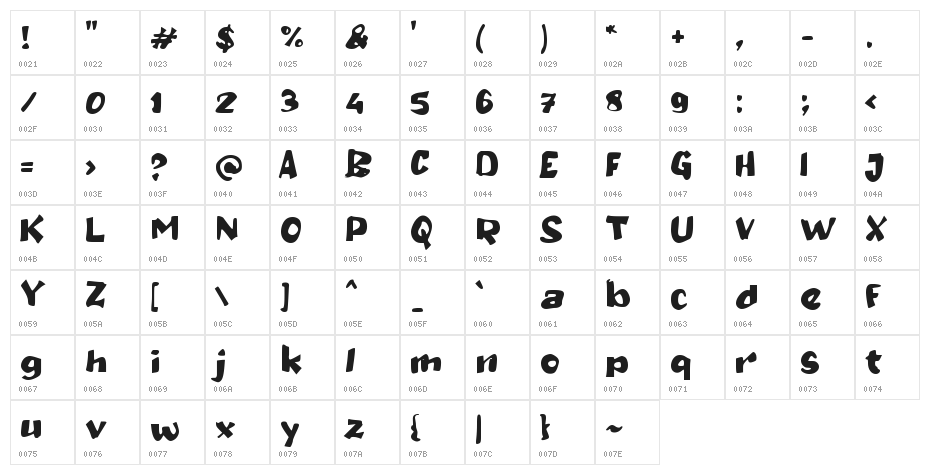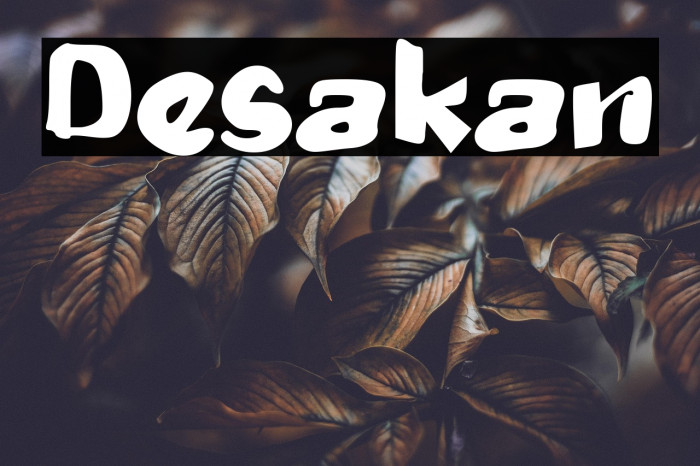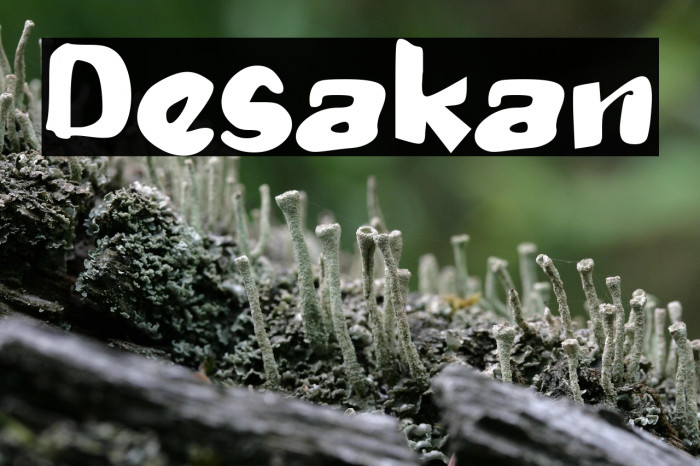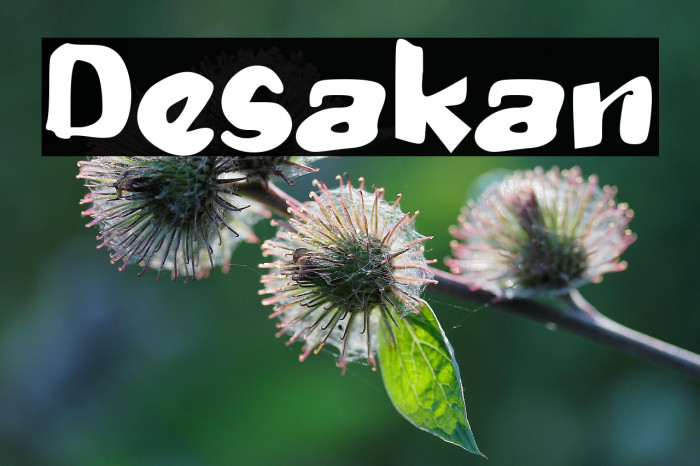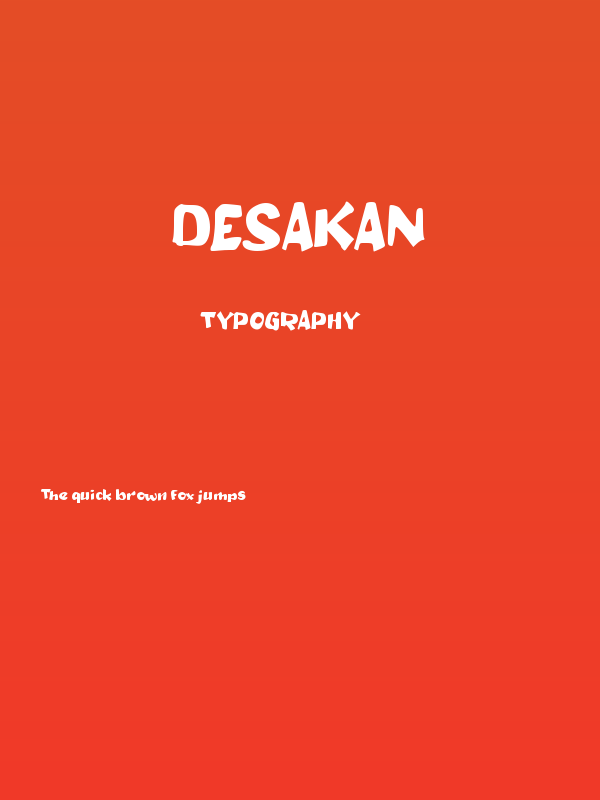
Desakan Font
Desakan Description
This font features a bold and playful style with a hand-drawn appearance. The characters are irregular and dynamic, giving a sense of movement and energy. The uppercase and lowercase letters maintain a consistent thickness, creating a cohesive look. The numbers and special characters follow the same lively design, making them stand out. This font is ideal for projects that require a fun and informal touch, such as children's books, posters, or creative branding. Its unique style captures attention and adds a whimsical element to any design.
| Overall Style | Playful, Whimsical |
| Use Case | Headlines, Posters, Creative Branding |
| Proposed Projects | Children's books, posters, creative branding, playful invitations. |